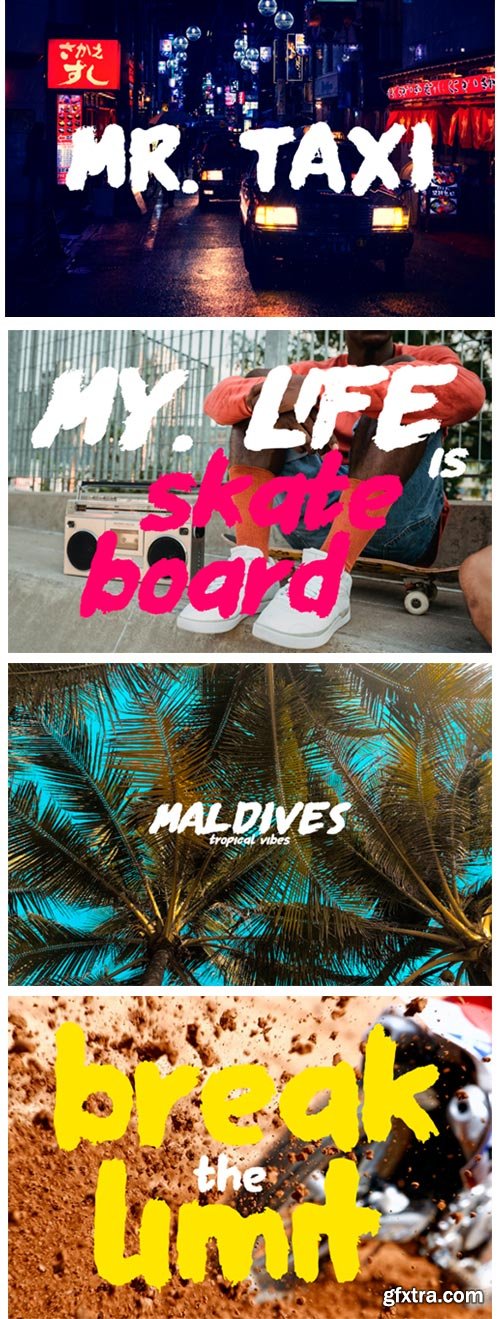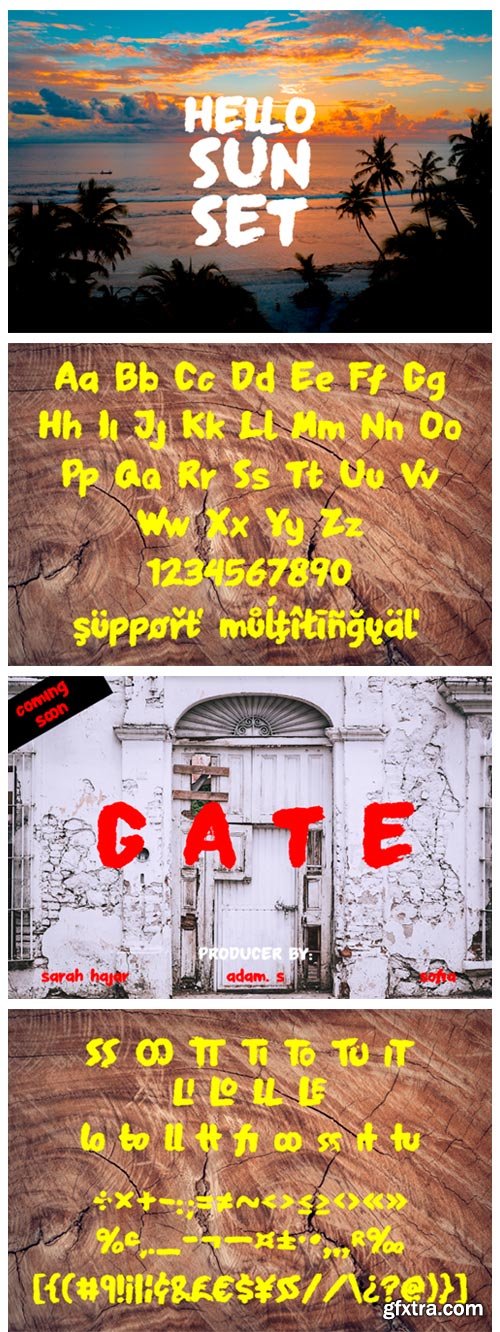
Mr Taxi Font
Mr Taxi is a bouncy and quirky display font. It will add a fresh and contemporary touch to your designs. Add this unique display font to each of your creative ideas and notice how it makes them stand out!